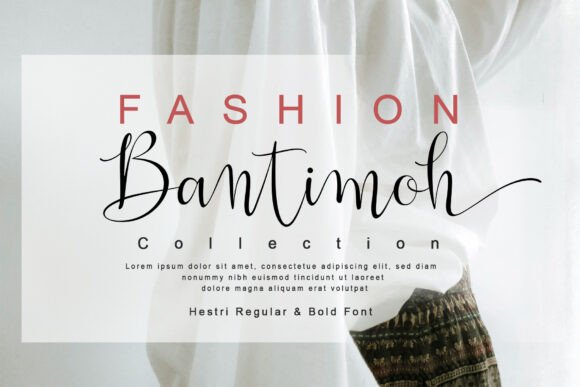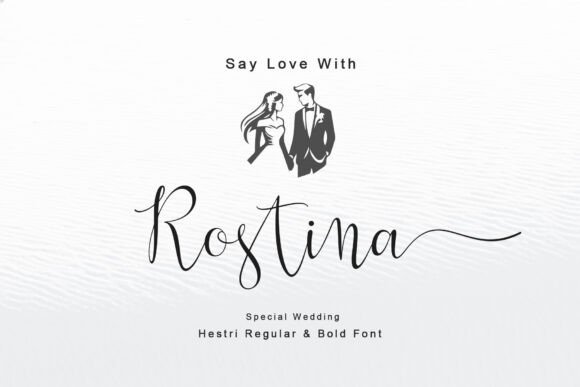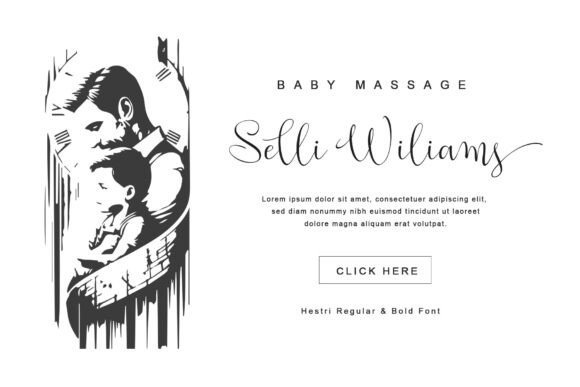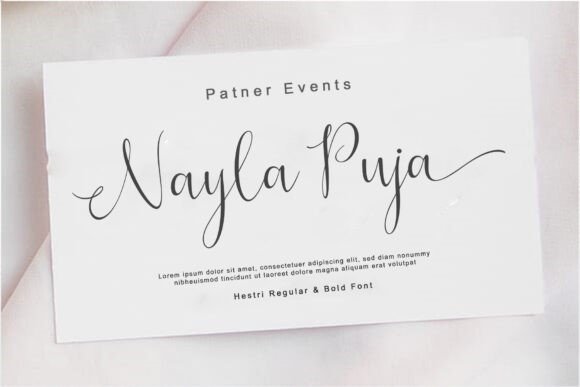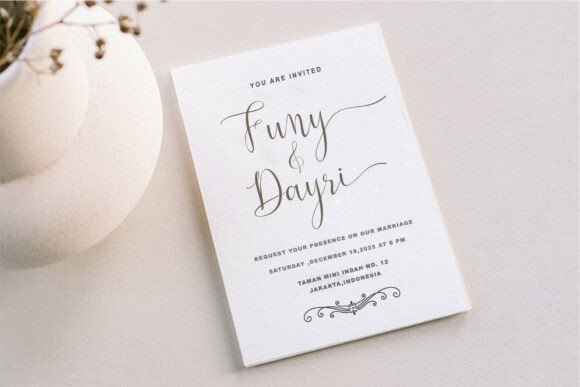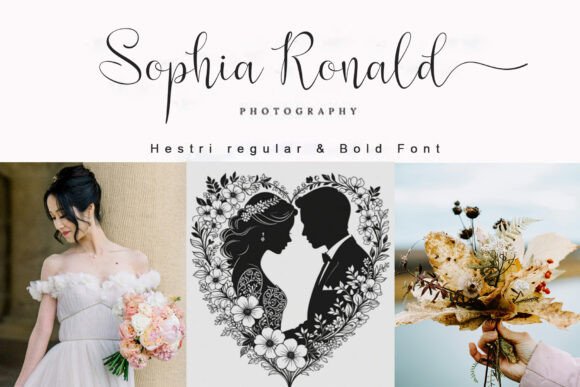
Introduction to Hestri Font
As designers, we’ve all been there – staring at a blank canvas, waiting for inspiration to strike. The cursor blinks, taunting us, as our minds wander through a sea of possibilities. But what if you had the perfect tool to elevate your creative project from bland to grand? Enter the Hestri Font, a stunning handmade font that’s sure to captivate your audience.
With its delicate, thin lines and elegant aesthetic, the Hestri Font is a design resource that exudes sophistication and refinement. Its unique characteristics make it an ideal choice for designers seeking a high-quality font that adds a touch of class to any project. Whether you’re working on a branding campaign, creating a beautiful logo, or designing a stunning website, the Hestri Font is sure to be a valuable asset in your design toolkit.
Key Features of Hestri Font
- Unique, modern font style with a transparent background, ideal for graphic designers and digital artists.
- Perfect for use in digital art, graphic design, and typography projects, offering a unique and modern aesthetic.
Honest Review: Hestri Font
I recently had the chance to work with the Hestri Font, and I must say it’s been a game-changer for my creative projects. This free download has become one of my go-to design resources.
- ✨ High-quality design: The Hestri Font is a stunning addition to any project, with its clean and modern lines.
- ✨ Transparent background: I love that it comes with a transparent background, making it easy to integrate into any design.
- ✨ Versatility: The font is incredibly versatile, working well for a wide range of creative projects, from logos to web design.
- ⚠️ Limited character set: While the font is beautiful, it’s limited to a relatively small character set, which can be a problem for longer texts.
- ⚠️ Not ideal for small text: The font is best suited for larger text sizes, as it can become difficult to read at smaller sizes.
Overall, I’m really impressed with the Hestri Font. Its high quality and versatility make it a valuable addition to any design library. While it’s not perfect, its strengths far outweigh its limitations, making it a must-have for any creative professional.
Does the Hestri Font have a transparent background?
Yes, the Hestri Font comes with a transparent background, making it easy to use in various design scenarios. The transparent background allows you to overlay the font on any image or background, giving you more creative freedom and flexibility in your design projects. This feature is especially useful for designers working on creative projects that require a high level of customization.